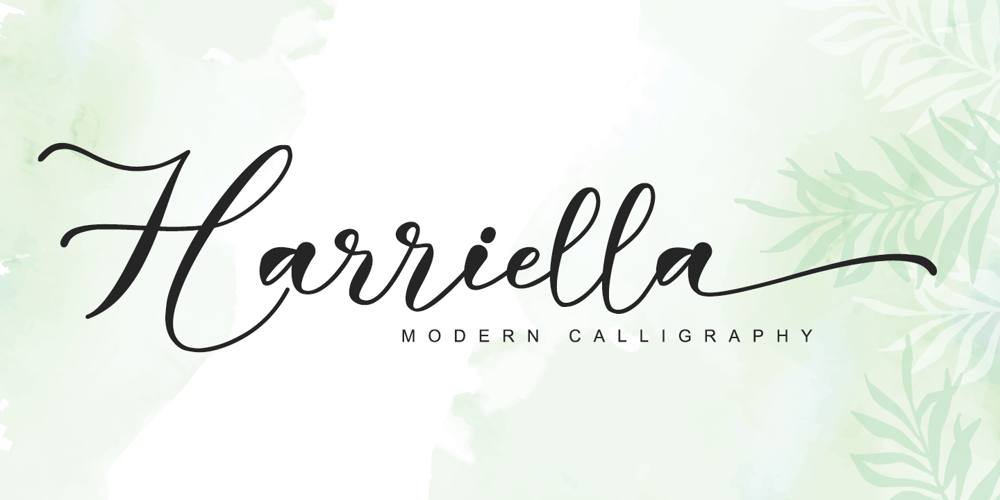
Harriella
Harriella font
Harriella Font Family was designed by Thomas Aradea and published by Letterara. Harriella contains 2 styles and family package options. Harriella is a refined and delicate handwritten font. This lovely script font has a wide spectrum of applications ranging from greeting cards to headlines and is guaranteed to add a romantic feel to your next project. It will turn any design project into a true stand-out. Add it to your most creative ideas and notice how it makes them come alive! This font is PUA encoded which means you can access all of the amazing glyphs and swashes with ease! It also features a wealth of special features including alternate glyphs, swashes, and ligatures.